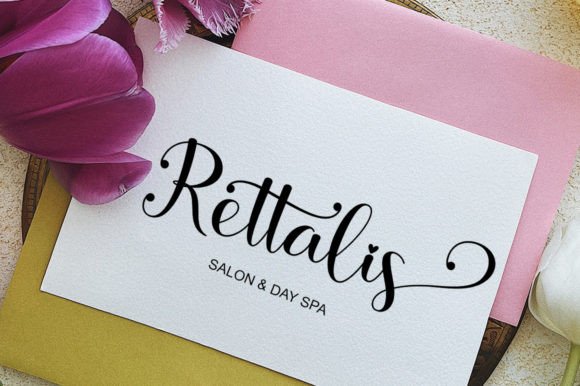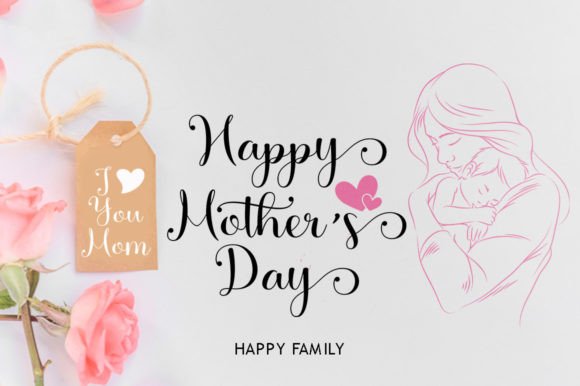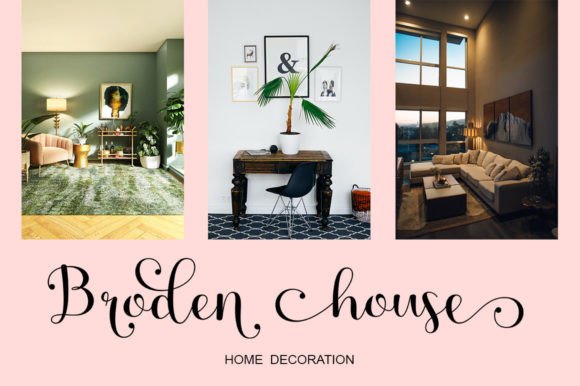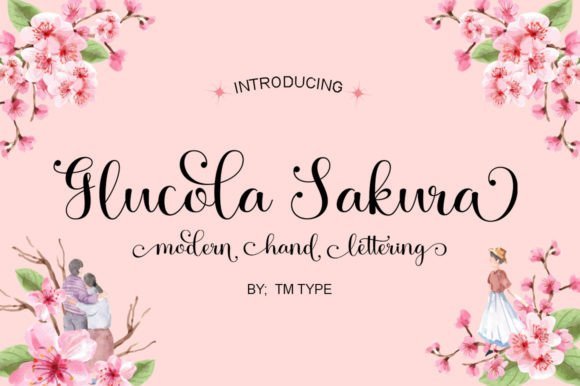
Introduction to Glucola Sakura Font
Glucola Sakura is a lovely and sweet handwritten font.
This gentle font will look gorgeous on a variety of design ideas It will add a joyful and romantic touch to each of your projects.
Key Features of Glucola Sakura Font
Why Choose Glucola Sakura Font?
Glucola Sakura Font offers exceptional quality and versatility, making it a valuable addition to your design toolkit. Whether you’re creating for personal projects or commercial use, Glucola Sakura Font delivers professional results.